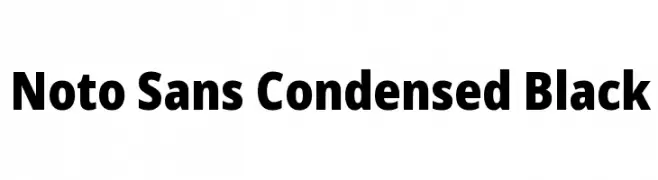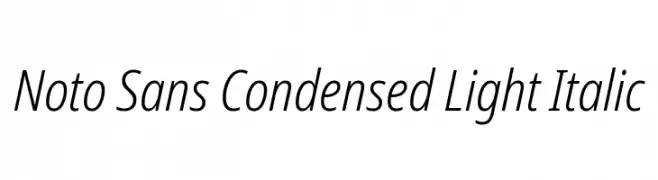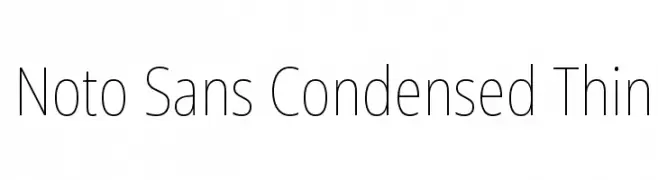
A sleek, modern, condensed italic typeface with light strokes and tight spacing.
A modern, bold, semi-condensed sans-serif font with italic styling.
A modern, bold, extra condensed sans-serif font with clear, uniform strokes.
A modern, extra condensed, semi-bold italic sans-serif typeface with tight spacing.
A clean, minimalist font with thin strokes and balanced spacing.
A bold, condensed sans-serif font with high contrast and tight spacing.
A sleek, extra-condensed, light, and italic sans-serif font with a modern style.
A bold, extra-condensed sans-serif font with italic styling and high contrast.
A modern, thin, and condensed sans-serif typeface with excellent legibility.
A clean, modern sans-serif font with a light weight and excellent legibility.